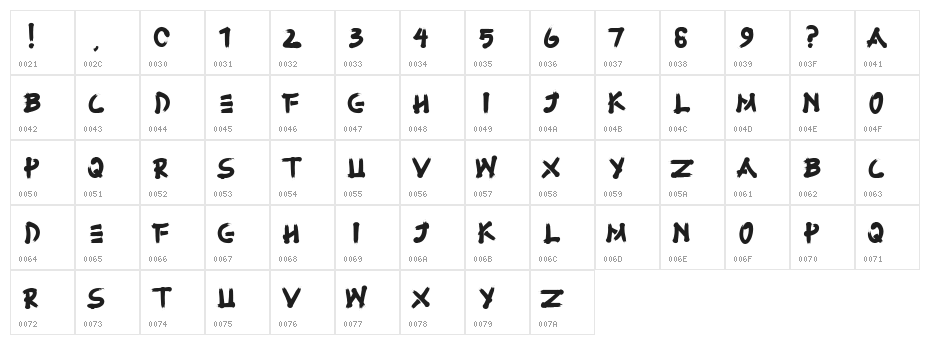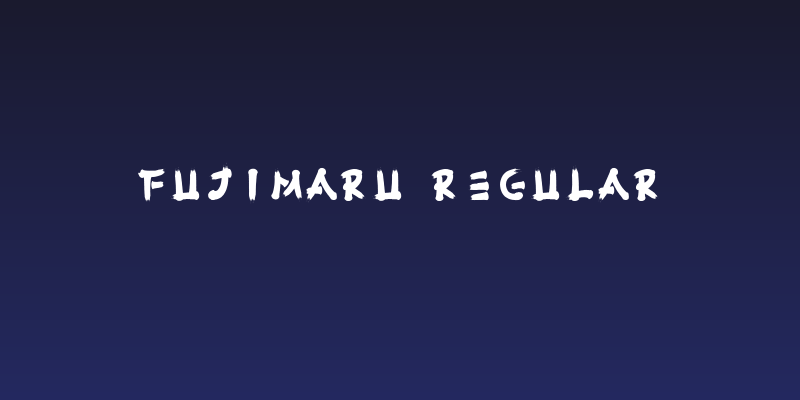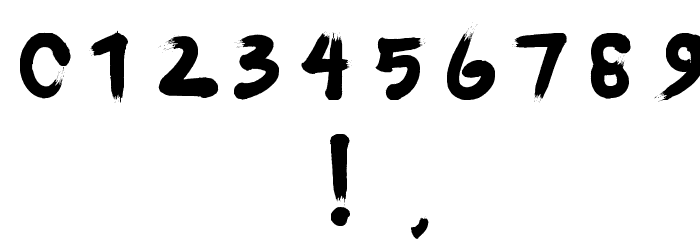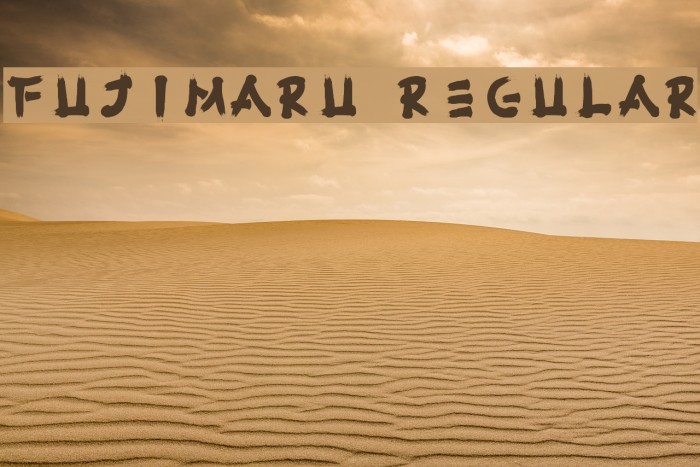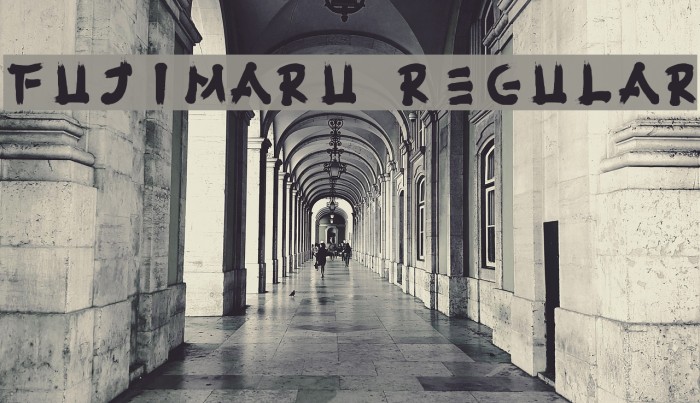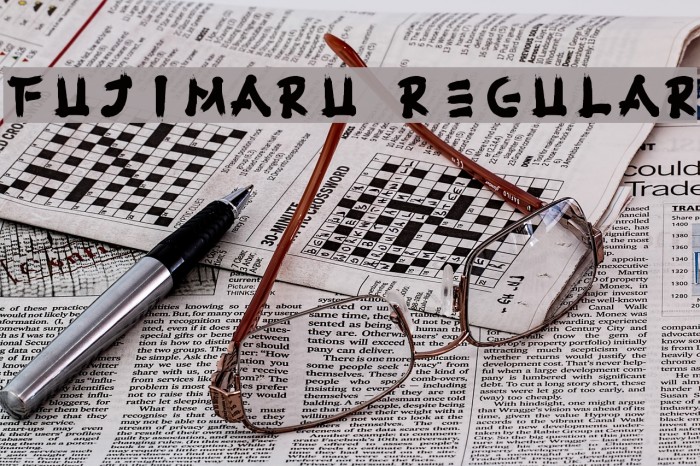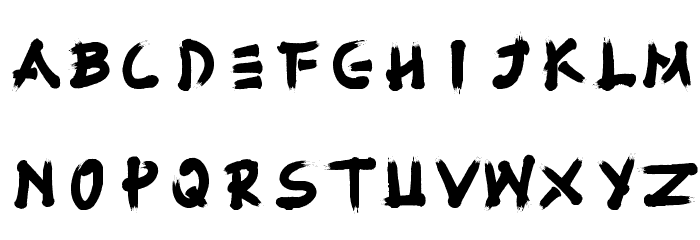
Fujimaru Regular Font
Fujimaru Regular Description
This font features a bold, brush-like appearance with a dynamic and energetic style. The strokes are uneven, mimicking the natural flow of hand-painted letters. Each character has a unique flair, with varying thicknesses that add a sense of movement and vitality. The uppercase and lowercase letters maintain a consistent aesthetic, while the numbers and special characters blend seamlessly with the overall design. The font's artistic quality makes it stand out, offering a creative and expressive look.
| Use Case | Logos, Posters, Artistic designs |
| Proposed Projects | Ideal for artistic projects, branding, posters, and any design requiring a bold, creative touch. |